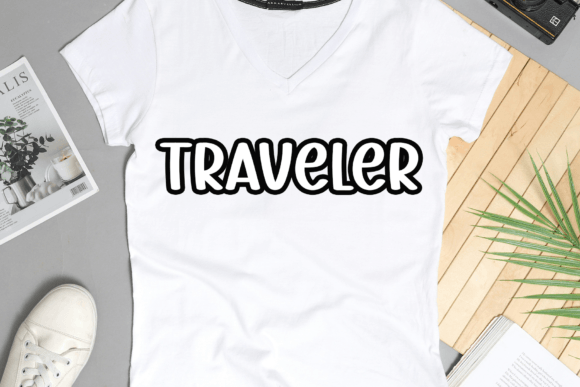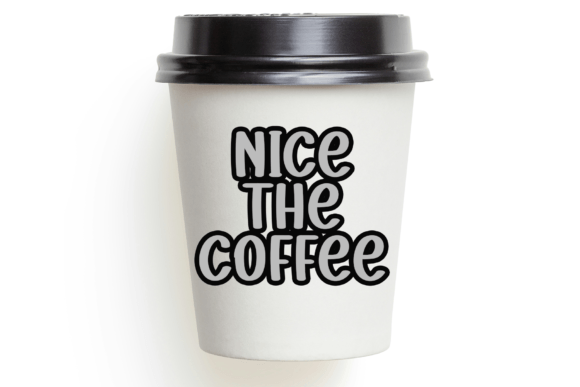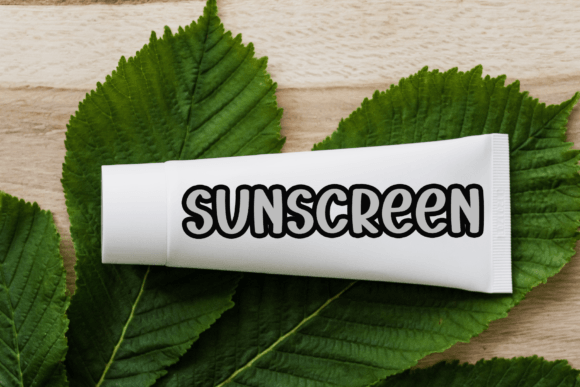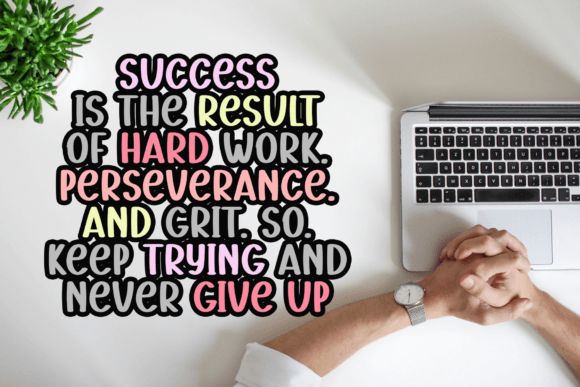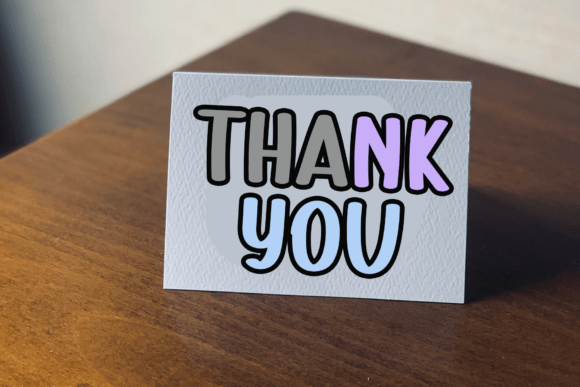
Designing for Good Vibes
Have you ever stumbled upon a font that instantly puts a smile on your face? That’s what happened to me when I discovered Good Time Font. I was working on a branding project and needed a font that would capture the carefree spirit of a summer evening. As I browsed through the options, Good Time Font’s charming display caught my eye, and I knew I had found the perfect fit.
Good Time Font is a delightful addition to any design project, imbuing it with a sense of freshness and casual elegance. Its fluid strokes and organic lines evoke a laid-back vibe, making it perfect for branding, invitations, or social media graphics. Whether you’re looking to add a touch of warmth and personality to your designs, Good Time Font is a valuable asset for any designer.
Good Time Font Key Features
- Font Family: Good Time Font is a sans-serif font family designed for use in digital and print media.
- Unique Characteristics: Good Time Font features a clean and modern design, with a unique blend of geometric and organic elements, making it highly legible and visually appealing.
Good Time Font Review
I recently had the chance to work with Good Time Font, and I must say, it’s a unique and interesting choice for designers. Here’s my honest review.
- Unique Character**: Good Time Font has a distinctive feel to it, with a mix of modern and vintage elements.
- High Legibility**: The font is highly legible, even at smaller sizes, making it suitable for a wide range of applications.
- Good for Emphasis**: The font’s bold weight and distinctive style make it perfect for creating emphasis and adding visual interest to text.
- Not Suitable for Long Text**: Due to its unique style, Good Time Font can be overwhelming when used for large blocks of text.
- Limited International Support**: The font may not support all languages, which could be a limitation for designers working on international projects.
- May Not Be Suitable for Small Text**: The font’s bold style can make small text difficult to read, especially on digital devices.
Good Time Font is a great choice for designers looking to add some personality to their work. While it may have some limitations, it’s a unique and effective font that can add a lot of visual interest to text. With some careful planning and consideration, Good Time Font can be a valuable addition to any designer’s toolkit.
Good Time Font is a versatile font that can be used for a variety of purposes, including:
1. Titles and headings
2. Body text for creative projects
3. Social media graphics and posts
4. Print materials such as business cards and flyers
Remember to adjust the font size and spacing to ensure readability and visual appeal.